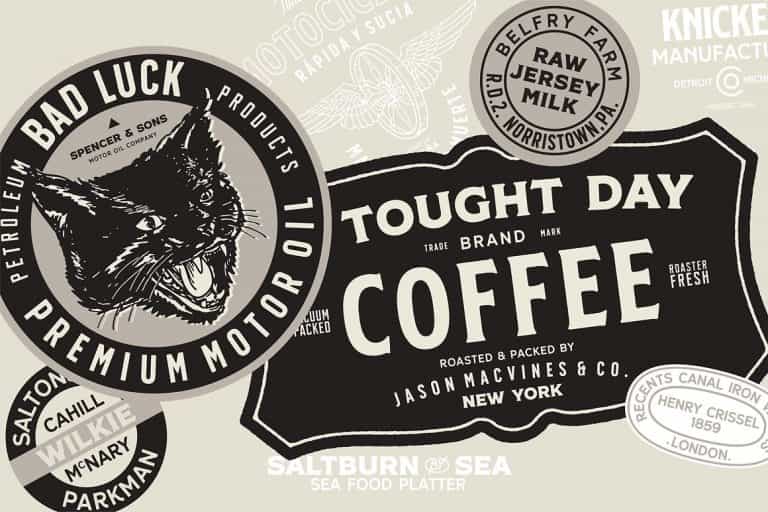
Introducing S&S Nickson Font. Designed and distributed by Spencer & Sons Co, Nickson Font Family consists of 15 fonts which are different from each other in style but, complement when used together. Nickson Font Family Collection is the result of careful design to suit elegant typographic works. It would be an optimal option to develop posters, affiches, logos, t-shirt and magazine prints, visually attractive typographic designs and so on.